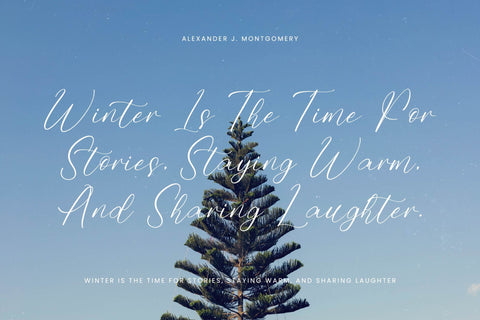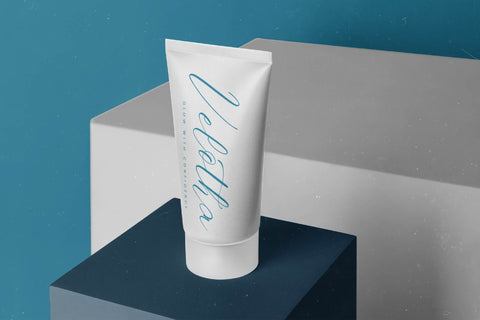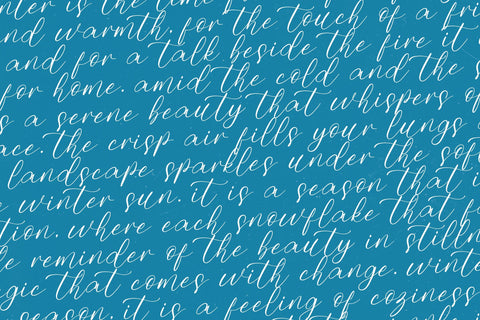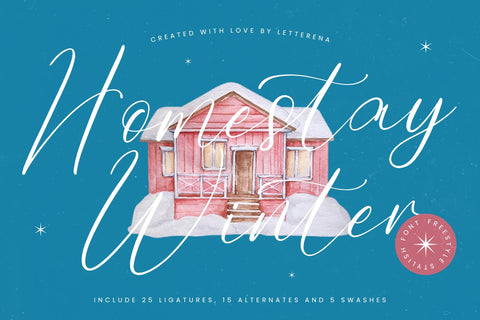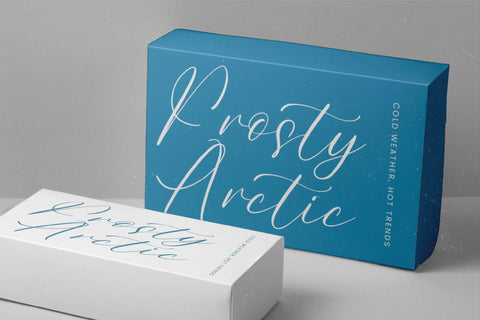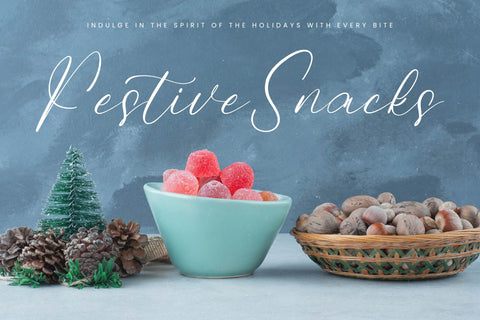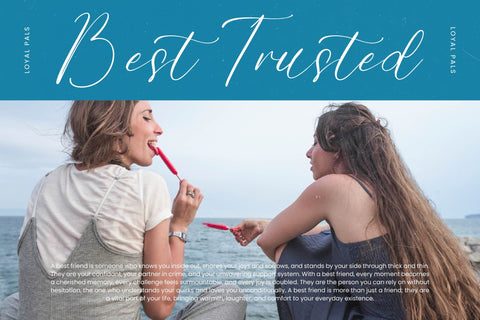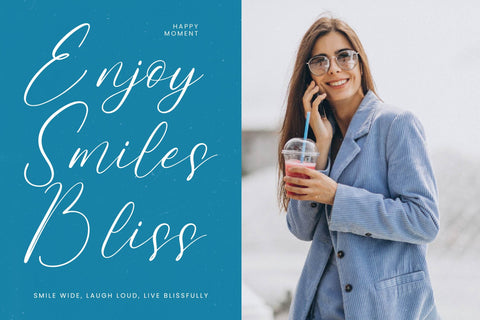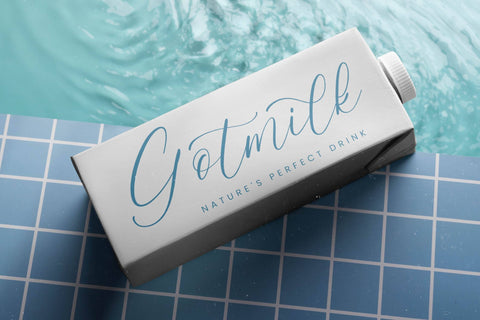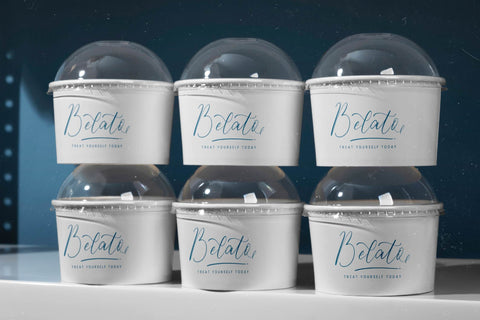
Homestay Winter - Freestyle Stylish Font
Homestay Winter - Freestyle Stylish Font , from Letterena, is a Luxury Script font, suitable for any projects such as: logos, branding projects, homeware designs, product packaging, mugs, quotes, posters, shopping bags, t-shirts, book covers, name card, invitation cards, greeting cards, label, photography, watermark, special events, and all your other luxury and beautiful projects that need a Luxury Script taste.